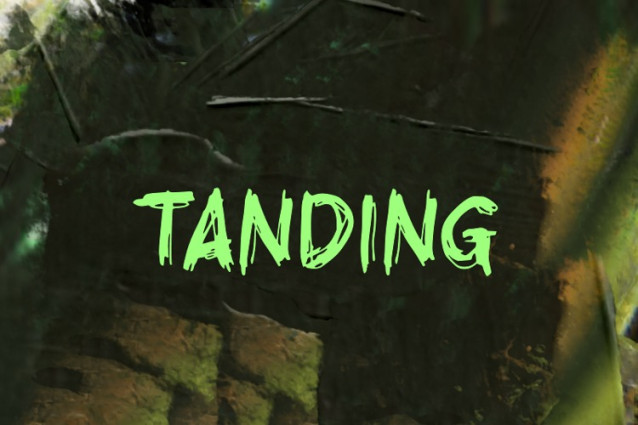
Tanding Font
Tanding Font a handmade display brush font that oozes raw energy and a daring edge. Its rugged strokes and dynamic presence make it ideal for impactful designs such as album covers, event posters, logos, and urban-themed projects. Perfect for creatives looking to leave a fierce impression!